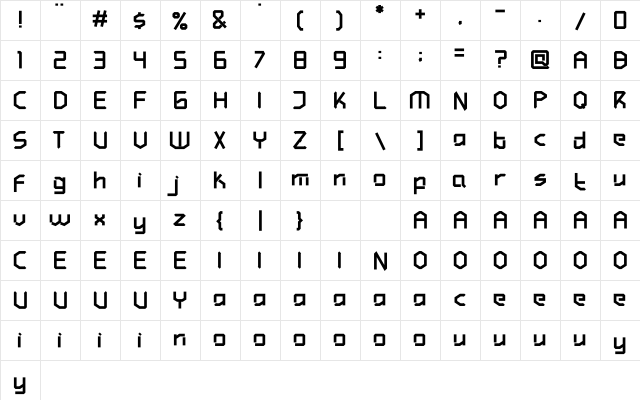
Hundred Wars Extrabold
| Designer | Ril Anwar |
Design Context for Hundred Wars Typeface
Hundred Wars is a composed and adaptable typeface that performs quietly and consistently across a wide range of design contexts. The heavy weight commands attention and anchors typographic hierarchies.